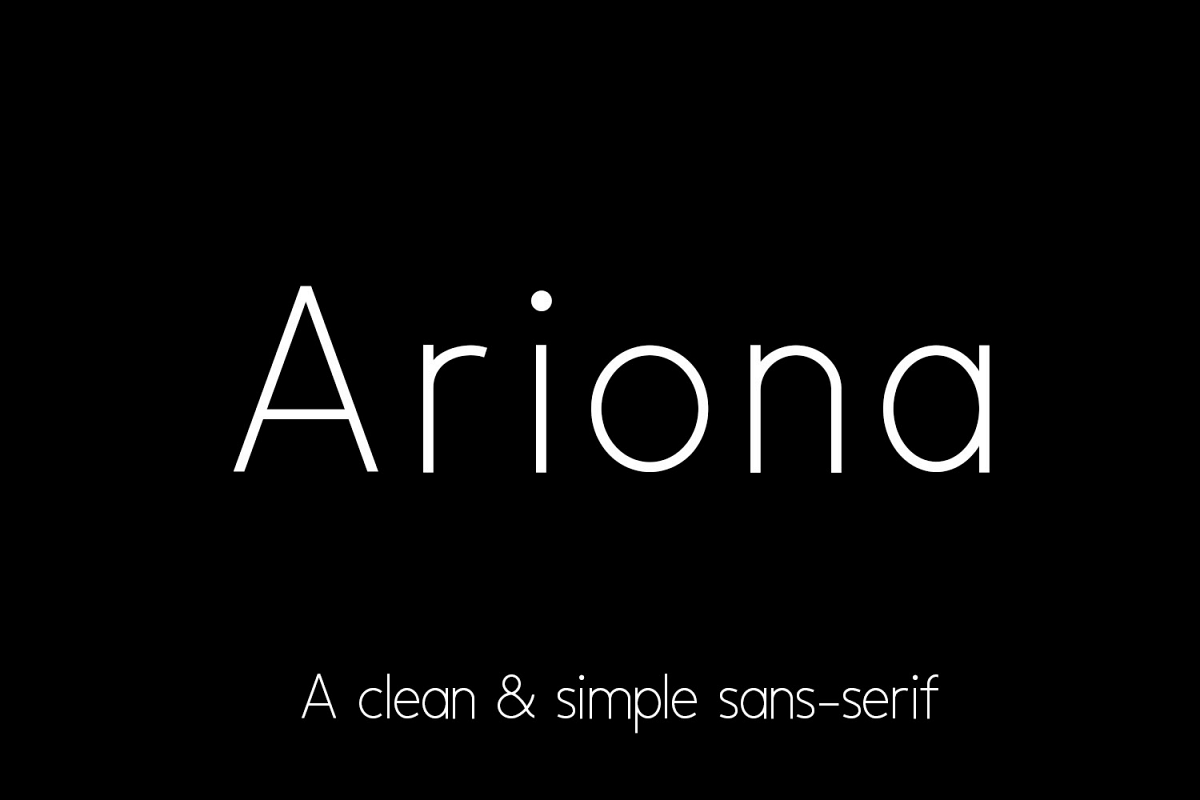
Ariona is a clean and simple sans-serif.
With a modern appearance, Ariona looks great as logotype with increased kerning as shown in some of the preview images.